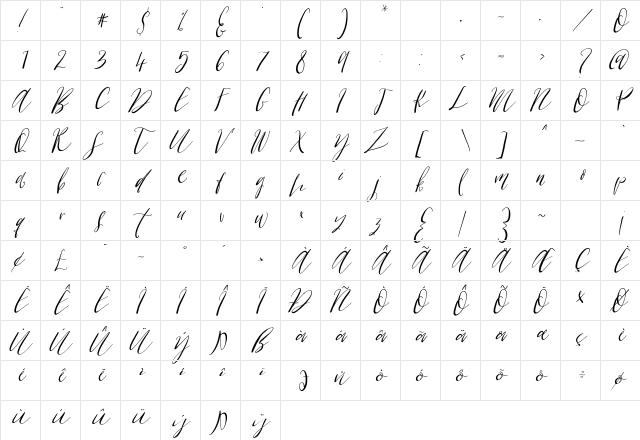
Complete Cottage Gardens Alternates Italic glyph index. Displaying only characters natively supported by Cottage Gardens Alternates Italic font.
Cottage Gardens Alternates is a composed and adaptable typeface that performs quietly and consistently across a wide range of design contexts. The slanted form adds forward momentum and visual energy.